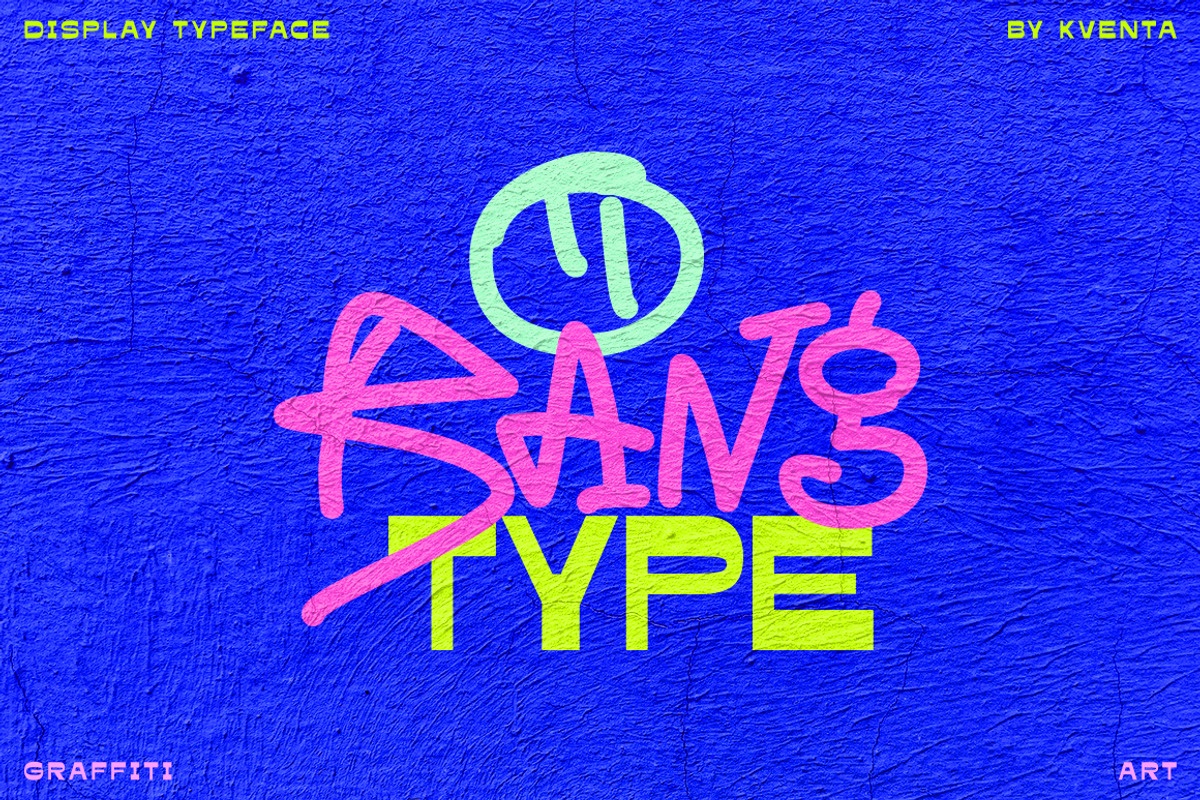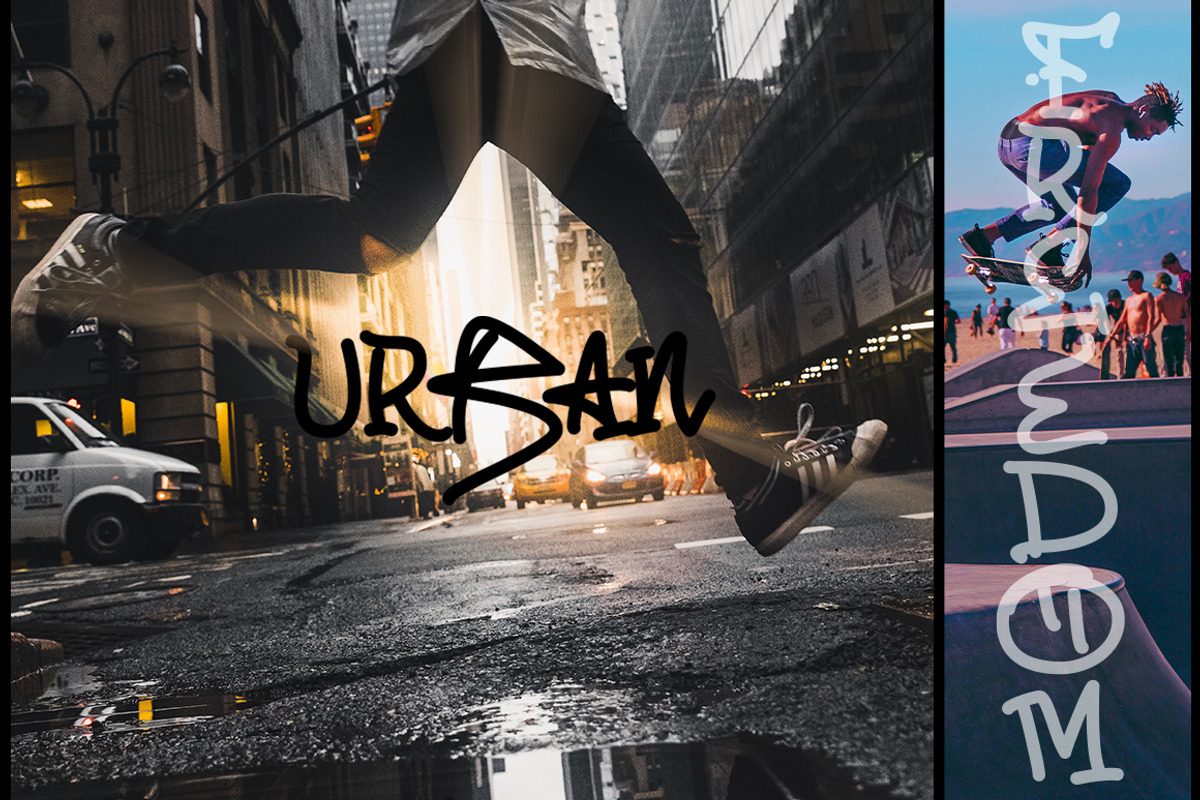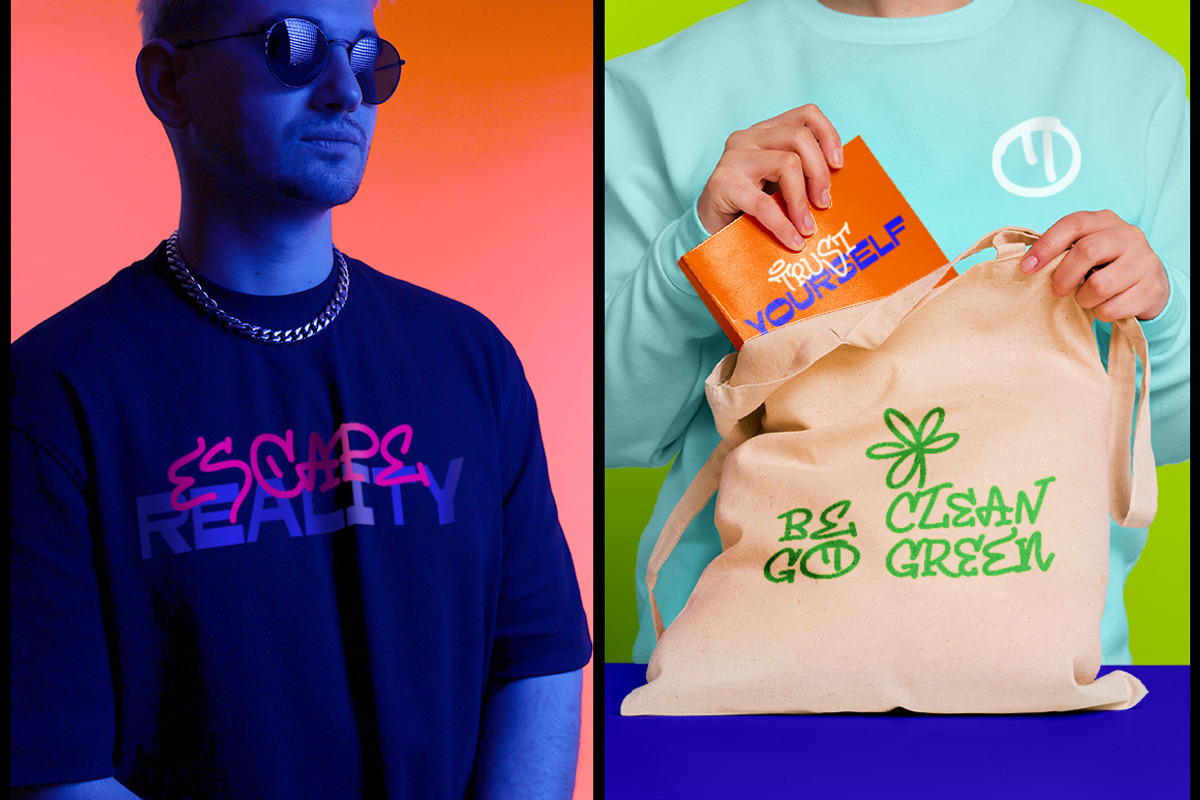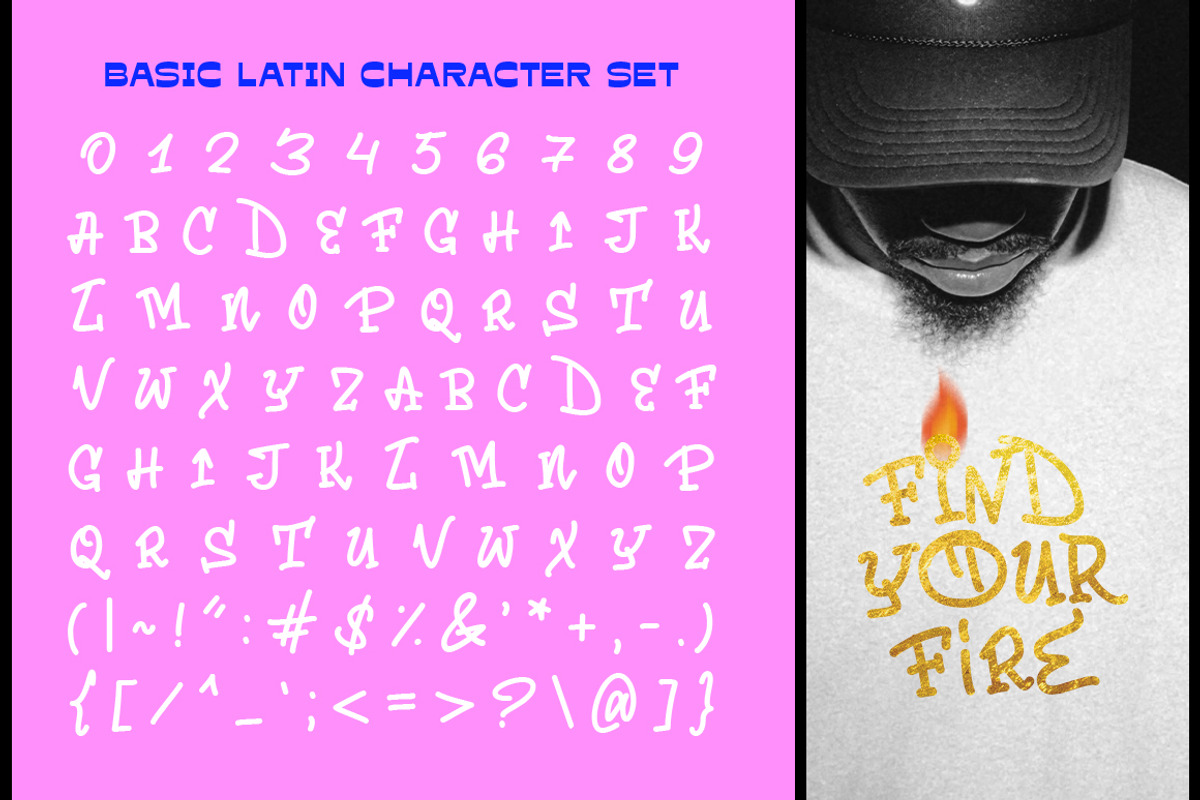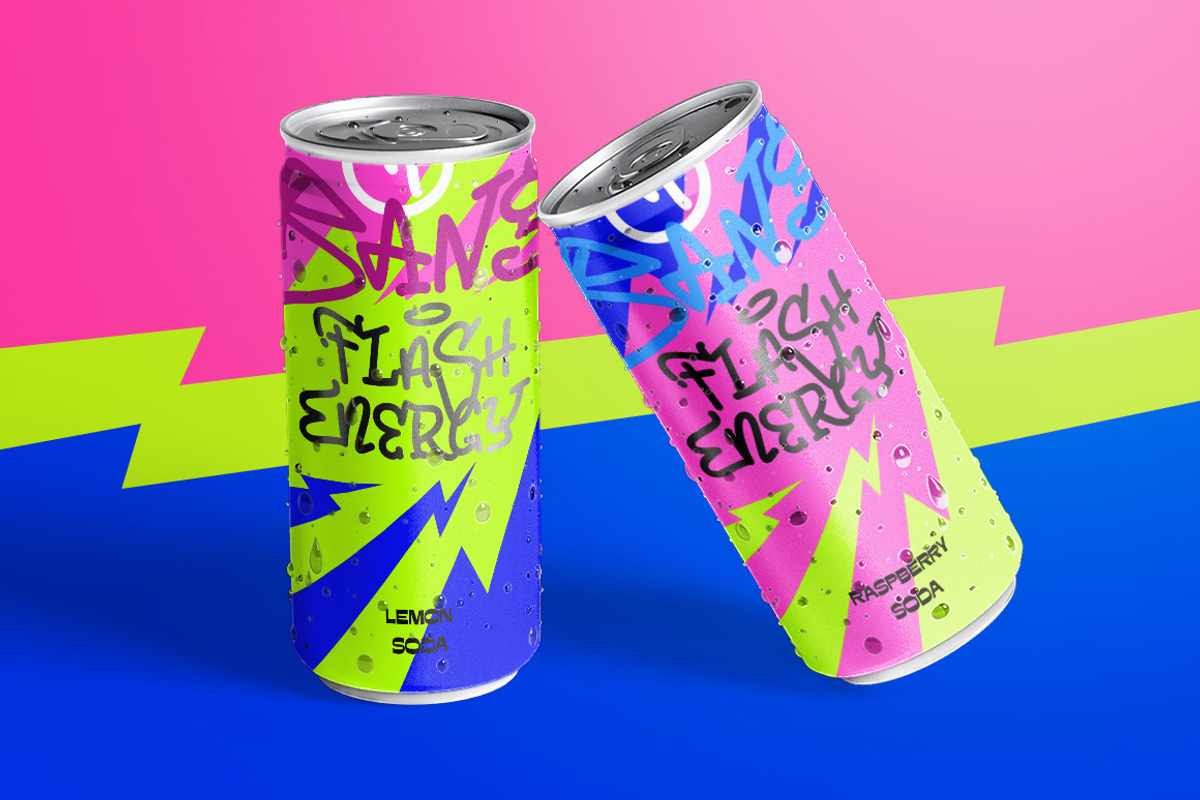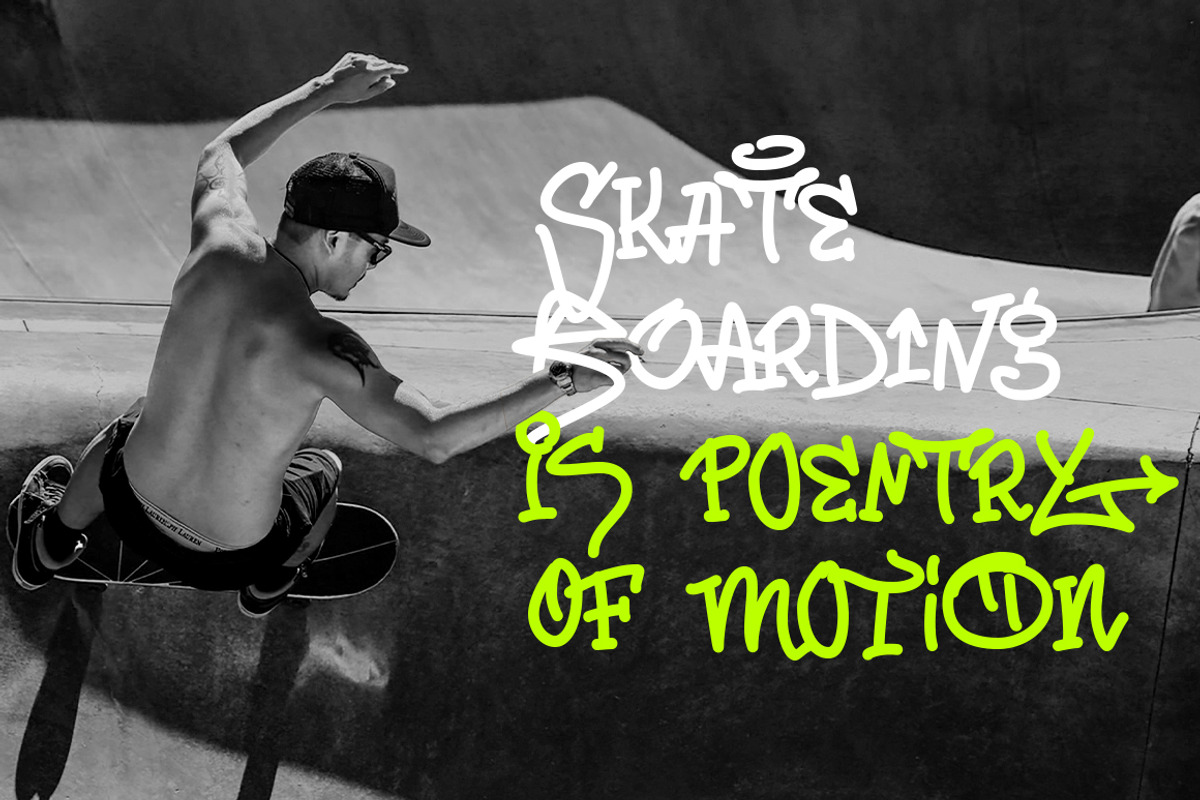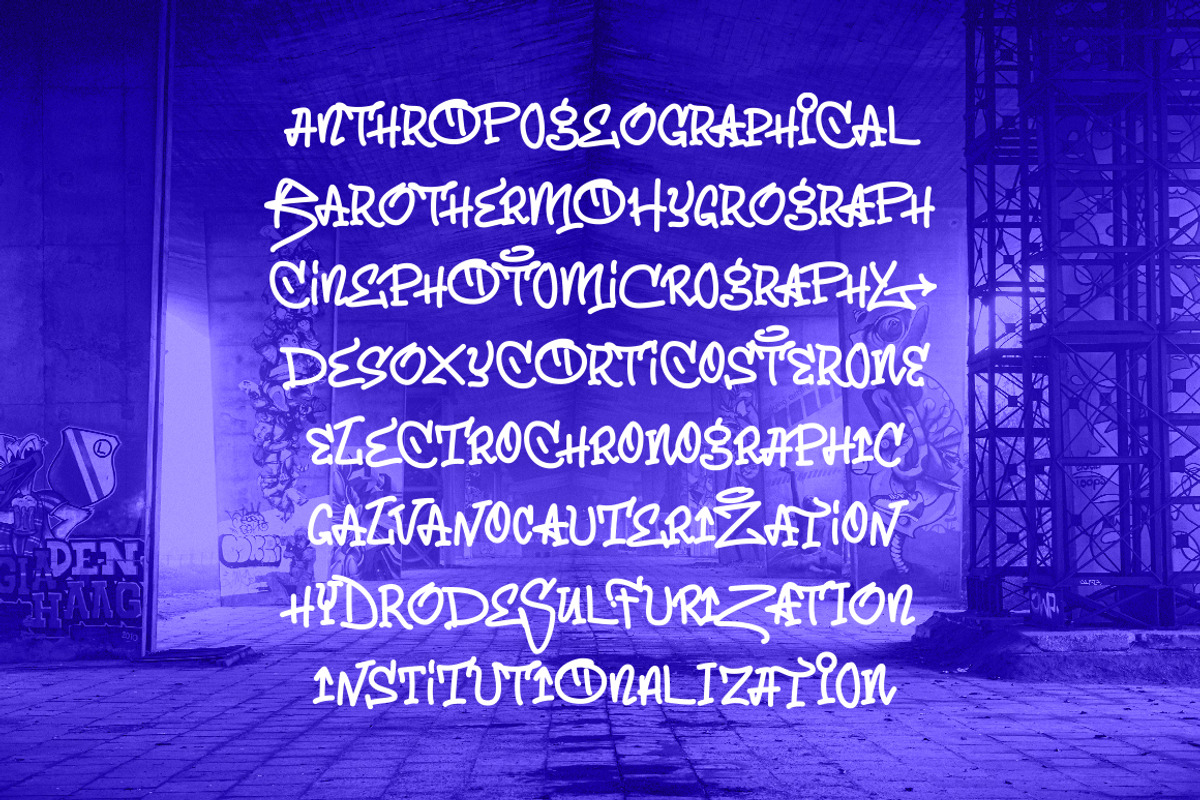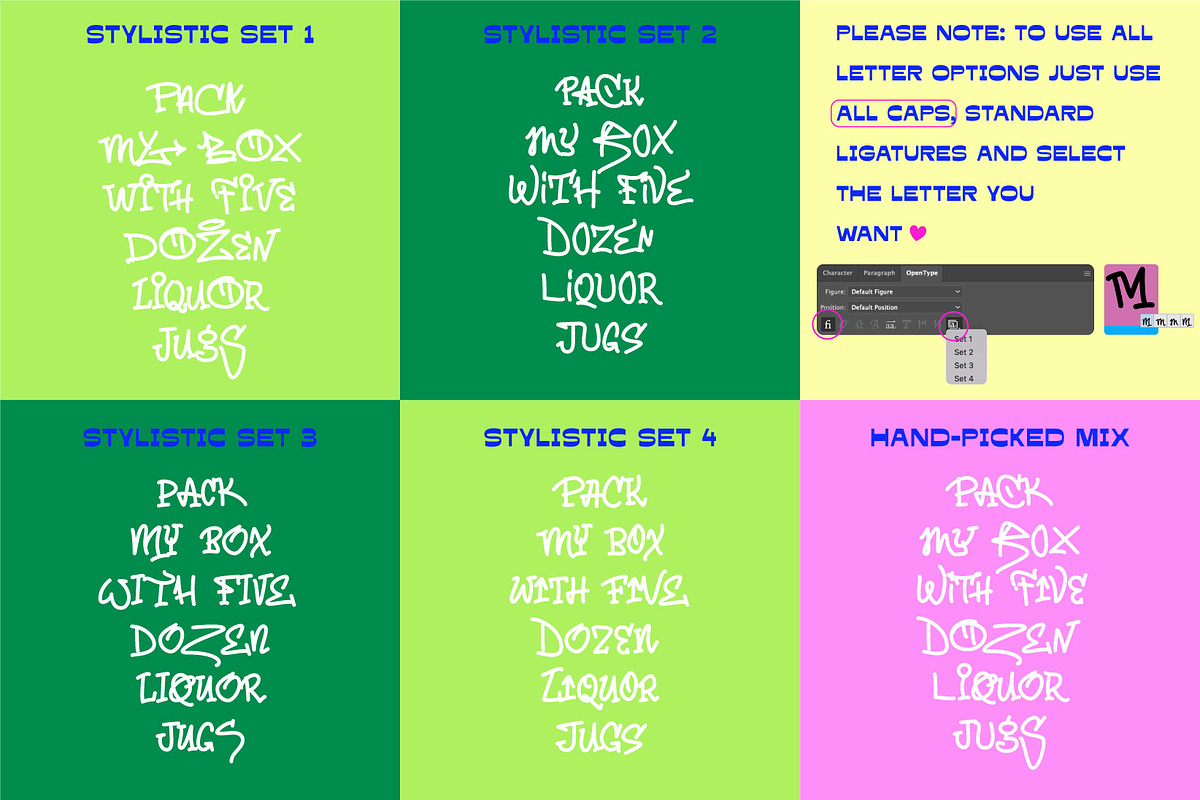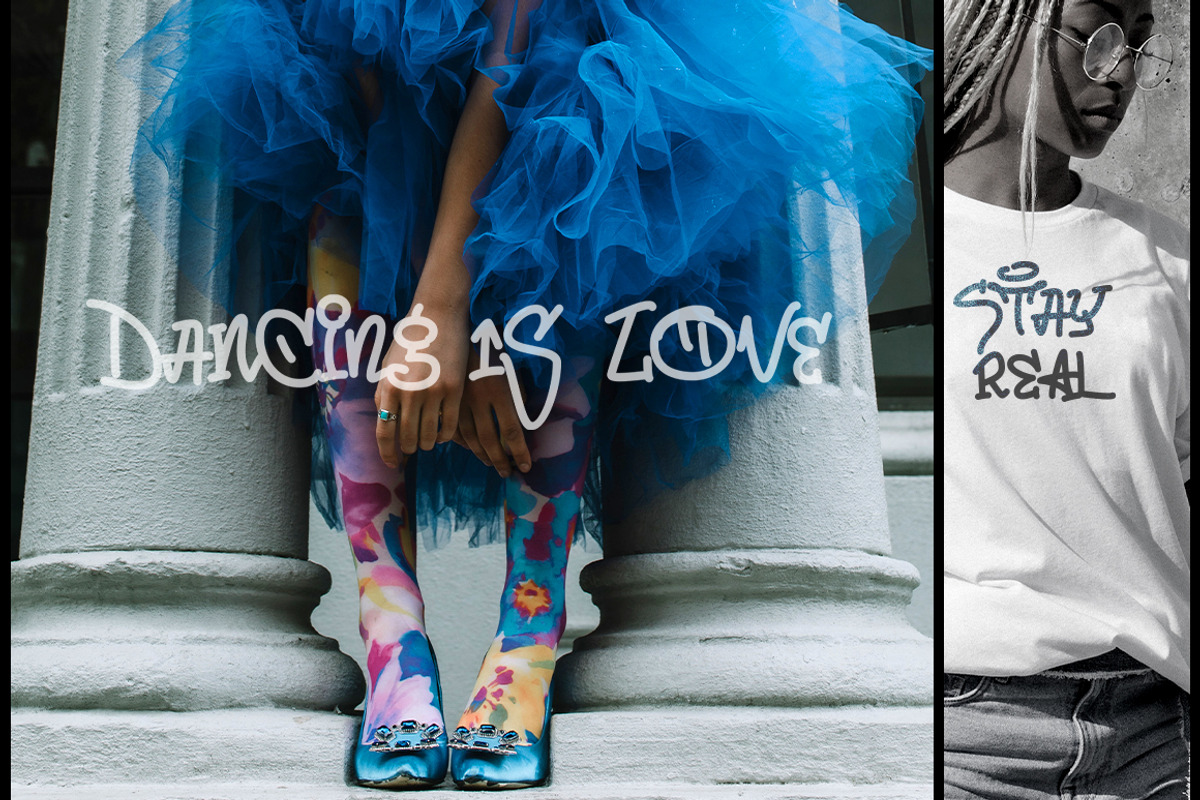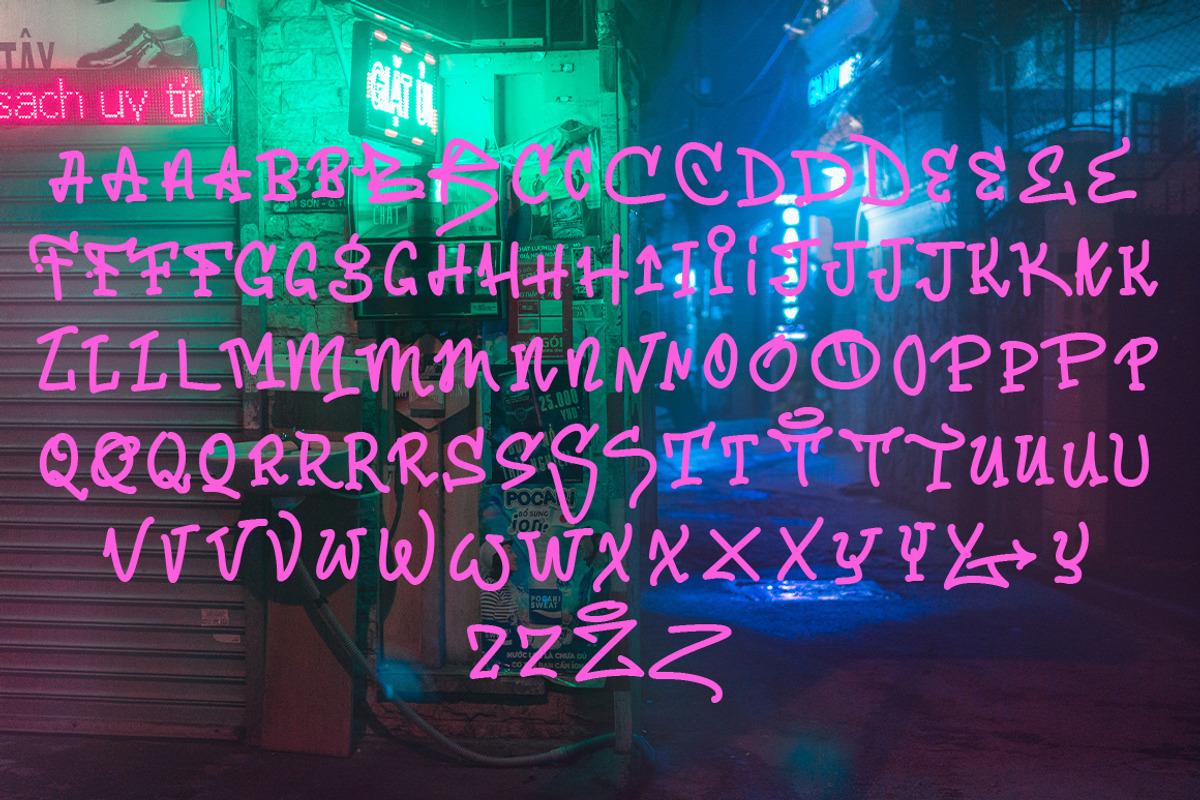
O Bang - Urban graffiti font
O Bang is a modern graffiti font inspired by street art. This font includes 4 stylistic sets, punctuation, and numerals. It is perfect for:
- Logos
- Posters
- Headlines
- Apparel
- Graffiti tags
- & more